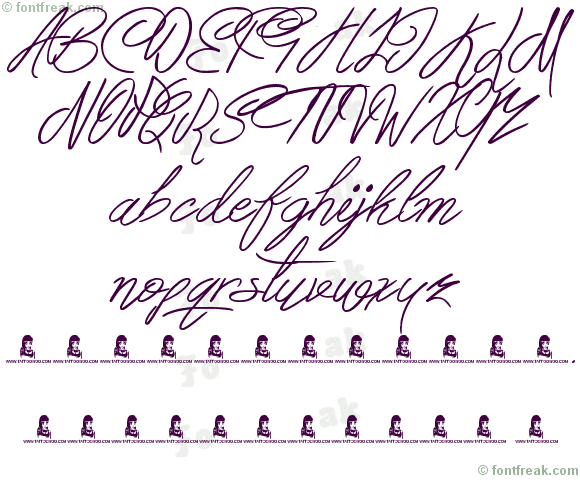
Berty Script
Berty Script font preview
Berty Script — Character Map
About Berty Script
Berty Script is a captivating handwritten font designed by Jonathan S. Harris, falling into the script category. This font features elegant, fluid strokes that convey a sense of warmth and personality. The stroke weight varies subtly, adding a dynamic quality to the letters, while the moderate contrast enhances readability without sacrificing style. The spacing is generous, allowing each character to breathe, which is particularly appealing in longer text passages. Decorative elements, such as graceful swirls and loops, contribute to its artistic flair, making it an ideal choice for projects that require a personal touch.
This versatile font is perfect for a variety of use cases. It shines in wedding invitations, where its romantic style can beautifully convey heartfelt messages. Berty Script also works well for branding small businesses, particularly in the food and beverage industry, where it can add a charming flair to restaurant menus and signage. Additionally, graphic designers will find it an excellent option for creating eye-catching movie posters or promotional materials that need a touch of elegance. Content creators can utilize Berty Script in social media graphics, giving their posts a distinctive look that captures attention.